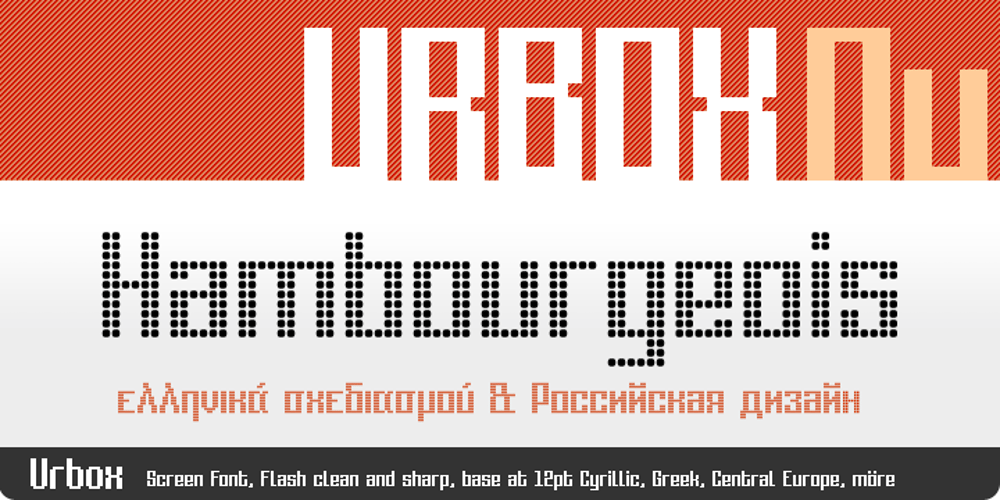
Urbox Nu Font Family was designed by Michel Troy and published by UrbanPixel. Urbox Nu contains 22 styles and family package options. The best of both worlds: good for small screen resolutions and nice output at larger sizes. Usage recommendations: Webdesign – Flash and screen output or bigger dotty project!